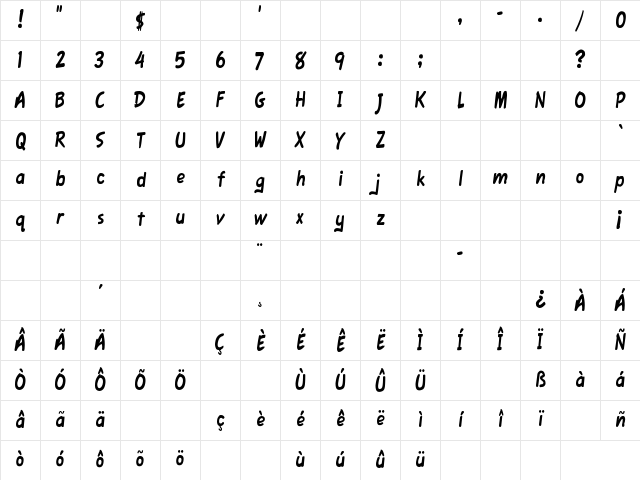
Fawn Script Regular
Complete Fawn Script Regular glyph index. Displaying only characters natively supported by Fawn Script Regular font.
Design Context for Fawn Script
Fawn Script flows with the natural rhythm of handwritten lettering, making it ideal for designs that call for warmth and personal expression.